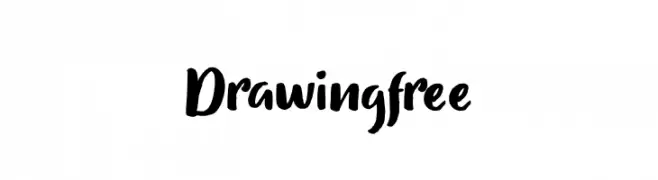
A cartoonish, illustrative display font with each character as a unique drawing.
A graceful script font with flowing, interconnected letters and elegant curves.
A bold, brush-style font with a handwritten, dynamic appearance.
A cursive, handwritten font with a smooth, flowing style.
A clean, single-line font with a modern and minimalistic design.
Evenly spaced square hole grid pattern.
Ornate fantasy-themed pictorial font with mythical creatures.
Expressive, dancer-themed illustrative font with each letter as a unique figure.
A bold, dynamic font with sharp angles and smooth curves.
A playful, crayon-like font with a hand-drawn, whimsical style.
A modern font inspired by Arabic calligraphy with bold, angular characters.
A bold, grid-patterned display font with an architectural and technical design.